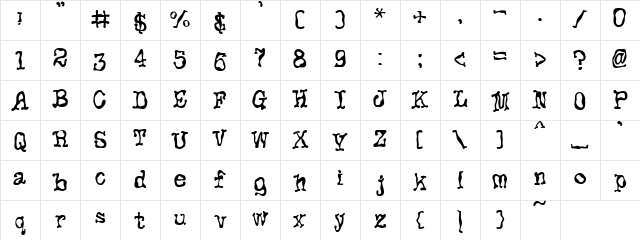
PC Spooky Regular
Design Context for PC Spooky
PC Spooky is a composed and adaptable typeface that performs quietly and consistently across a wide range of design contexts.
Pro Tip: Use PC Spooky in both headline and body roles to test its range before committing to a single application.